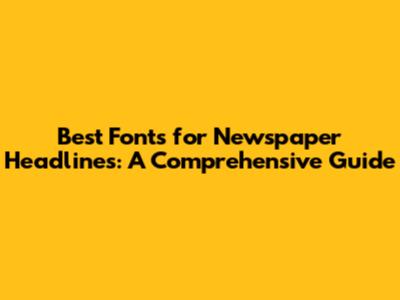
Choosing the right font for newspaper headlines is crucial for capturing readers' attention and conveying the tone of the article. The font should be legible, impactful, and reflect the newspaper's overall style. Let's dive into the world of newspaper headline fonts and explore some of the best options available.
Why Headline Fonts Matter
Hey guys, ever wondered why some newspapers just pop while others fade into the background? A huge part of that is the headline font. Think about it: the headline is the first thing readers see. It’s your chance to grab them, to make them think, "Okay, I need to read this!" A well-chosen font does more than just look pretty; it sets the tone, establishes credibility, and, most importantly, draws people into the story. You want something that screams, "Read me!", but also whispers, "Trust me." So, whether you're crafting hard-hitting news or a light-hearted feature, the right font is your secret weapon. Imagine trying to sell ice cream on a hot day using a font that looks like it belongs on a tombstone – doesn’t quite work, right? It's all about matching the font's vibe with the story's content. The goal is readability, impact, and alignment with the overall style of the newspaper. Think of the New York Times. Their font is synonymous with serious journalism, right? That's the kind of impact a great headline font can have. So, pay attention to those fonts, people! They are more than just decoration; they're your headline's voice. Without the right font, you risk your important stories getting lost in the shuffle. So next time you pick up a paper, take a peek at those headlines and appreciate the unsung heroes – the fonts that make news, news.
Key Characteristics of Effective Headline Fonts
When we talk about effective headline fonts, we're not just looking for something that looks cool. We're talking about a blend of readability, impact, and the ability to convey the right tone. First off, readability is king. If people can’t easily read your headline, they're going to skip right over it, no matter how eye-catching you thought it was. Think clear, clean lines and avoid anything too fancy or decorative that might strain the eyes. Next up is impact. Your headline needs to grab attention in a split second. This often means choosing a font with a bit of weight and presence, something that stands out on the page. But it’s not just about being loud. A great headline font also knows how to convey the right tone. Are you reporting serious news? Then you probably want something that feels authoritative and trustworthy. Writing a lighthearted feature? Maybe you can afford to be a bit more playful. The key is to match the font to the story. And, of course, consistency is important. You want to choose a font that fits with the overall style of your newspaper or publication. Think about the fonts used in your body text and other design elements, and make sure your headline font complements them. In short, effective headline fonts are all about striking the right balance. They need to be readable, impactful, and tonally appropriate, all while fitting seamlessly into your overall design. Get that balance right, and you’ll be well on your way to crafting headlines that grab attention and keep readers coming back for more.
Popular Font Choices for Newspaper Headlines
So, what are some popular font choices that really nail those key characteristics we talked about? Let's get into some specifics. A classic choice is Times New Roman, or something very similar. It's a serif font that's highly readable and has a sense of authority, making it perfect for serious news publications. Then you have fonts like Helvetica or Arial, which are sans-serif options. These are clean, modern, and versatile, making them great for a wide range of topics. Many newspapers like using Baskerville, due to its elegance. If you are looking for an eye catching font you could consider Impact. And let's not forget about display fonts! These are fonts that are specifically designed for headlines and other large-size text. They often have unique and eye-catching designs that can really make your headlines stand out. However, it's important to use these sparingly and make sure they fit with the overall style of your publication. When selecting a font you want to consider where the content will be displayed. While a printed newspaper can handle complex fonts, online newspapers may need something more basic.
Serif vs. Sans-Serif: Which is Better for Headlines?
Ah, the age-old debate: serif vs. sans-serif! Which is better for headlines? Well, the truth is, there's no single right answer. It really depends on the specific publication, the tone you're trying to convey, and your overall design aesthetic. Serif fonts, with their little decorative strokes, tend to feel more traditional, authoritative, and even a bit academic. Think of the classic newspapers like The New York Times – they often use serif fonts for their headlines to convey a sense of credibility and trustworthiness. On the other hand, sans-serif fonts, which lack those extra strokes, often feel more modern, clean, and approachable. They can be a great choice for publications that want to project a more contemporary image or that cover a wider range of topics, from hard news to lifestyle content. Ultimately, the best way to decide is to experiment and see what looks best for your specific publication. Try out different fonts, play around with different sizes and weights, and get feedback from your readers and colleagues. And don't be afraid to break the rules! If you have a clear vision for your publication and you think a particular font will help you achieve that vision, then go for it, whether it's serif or sans-serif. Just remember to always prioritize readability and make sure your headlines are clear, concise, and attention-grabbing. So choose the font that works for you!
Font Size and Weight: Maximizing Impact
Okay, so you've picked out a killer font. Awesome! But don't think you're done just yet. Font size and weight play a HUGE role in maximizing the impact of your headlines. Think of it this way: your font is the voice of your headline, but the size and weight are the volume and tone. Get them wrong, and your message might not come across as intended. First off, let's talk about size. Obviously, you want your headline to be bigger than the body text, but how much bigger? That depends on a few factors, including the font you're using, the overall design of your publication, and the importance of the story. A good rule of thumb is to start with a size that's at least twice as large as your body text and then adjust from there. You want something that's eye-catching without being overwhelming. Next up is weight. This refers to the thickness of the font. A heavier weight will make your headline stand out more, but it can also feel more aggressive or imposing. A lighter weight will feel more subtle and refined, but it might not grab as much attention. Again, it's all about finding the right balance for your specific publication and the tone you're trying to convey. So, experiment with different sizes and weights until you find a combination that really works for you. And don't be afraid to ask for feedback from your readers and colleagues. Sometimes, a fresh pair of eyes is all you need to take your headlines to the next level.
Pairing Headline Fonts with Body Text Fonts
Pairing headline fonts with body text fonts can be a tricky balancing act. You want something that complements each other without being too matchy-matchy or clashing horribly. One common approach is to choose a serif font for your body text and a sans-serif font for your headlines, or vice versa. This creates a nice contrast that can help to draw the reader's eye to the headline while still maintaining a sense of harmony. Another approach is to use different weights or styles of the same font family for your headlines and body text. For example, you might use a bold version of a particular font for your headlines and a regular version for your body text. This can create a more subtle but still effective contrast. Ultimately, the key is to experiment and see what looks best for your specific publication. Try out different combinations, play around with different sizes and weights, and get feedback from your readers and colleagues. And don't be afraid to break the rules! If you have a clear vision for your publication and you think a particular font pairing will help you achieve that vision, then go for it, even if it's not something that's typically done. The most important thing is to choose fonts that are legible, visually appealing, and that work together to create a cohesive and engaging reading experience. And like always, when selecting fonts, you need to consider the medium of your newspaper. Selecting online newspaper fonts is different than selecting ones for print.
Tools and Resources for Finding Headline Fonts
Alright, so where do you even start looking for the perfect headline font? Don't worry, guys, there are tons of tools and resources out there to help you out! One of the most popular options is Google Fonts. It's a free library of hundreds of fonts that you can use on your website or in print. It's super easy to use, and you can even filter fonts by category, style, and weight to narrow down your search. Another great resource is Adobe Fonts. This is a subscription-based service that gives you access to thousands of high-quality fonts from some of the world's leading type foundries. It's a bit more expensive than Google Fonts, but the quality and selection are definitely worth it if you're serious about typography. And don't forget about websites like MyFonts and FontShop. These are online marketplaces where you can buy individual fonts or font families from independent designers. They often have a wider selection of unique and unusual fonts than you'll find on Google Fonts or Adobe Fonts, so they can be a great place to find something that really stands out. Finally, don't be afraid to ask for recommendations from other designers or typographers. They can often point you to hidden gems that you might not have found on your own. So, get out there and start exploring! With so many great resources available, you're sure to find the perfect headline font for your next project. Take the time to learn the basics of typography and apply them to your font selection.
Choosing the right font for newspaper headlines is a critical decision that can significantly impact readership and overall brand perception. By understanding the key characteristics of effective headline fonts, exploring popular font choices, and considering factors like size, weight, and pairing, you can create headlines that grab attention, convey the right tone, and keep readers coming back for more. So, go forth and experiment, and may your headlines always be bold and impactful!